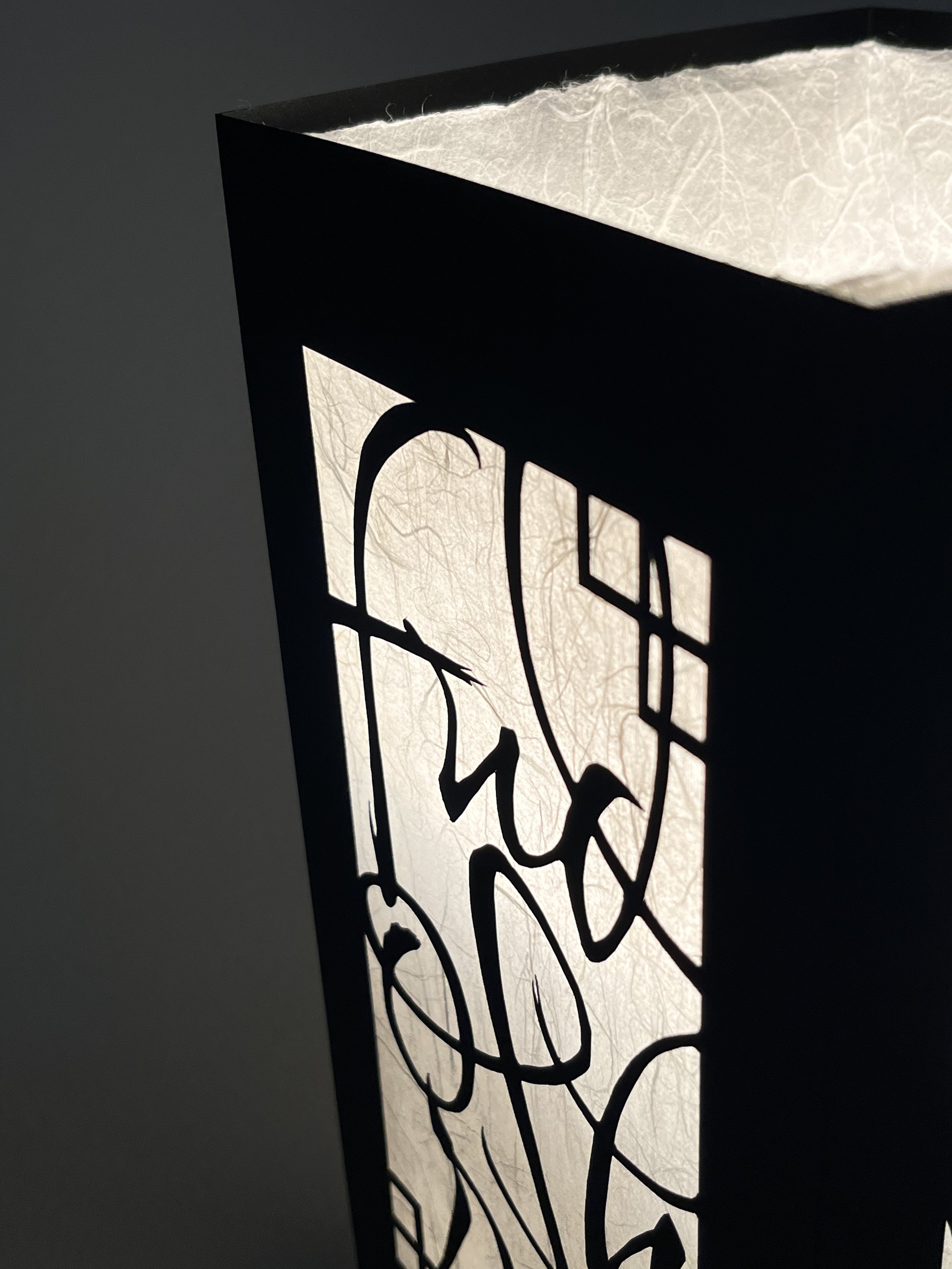
Kay Sadaoka fell in love with lettering in 2019 and began exploring different techniques and media. She eventually discovered calligraphy, and began honing her skills through online workshops and disciplined practice.
TITLE | Mindset of Kendo practitioner
The text depict three words representing the state of mind that Kendo practitioners should achieve through practice. The letters, made from paper cutting, are created to look as if written with energetic brush strokes. The white washi paper can be removed, to enjoy the shadows of the cut-out letters.
TITLE | Mindset of Kendo practitioner
The text depict three words representing the state of mind that Kendo practitioners should achieve through practice. The letters, made from paper cutting, are created to look as if written with energetic brush strokes. The white washi paper can be removed, to enjoy the shadows of the cut-out letters.
Kay Sadaoka fell in love with lettering in 2019 and began exploring different techniques and media. She eventually discovered calligraphy, and began honing her skills through online workshops and disciplined practice.